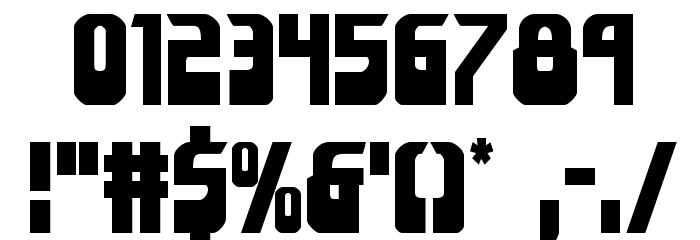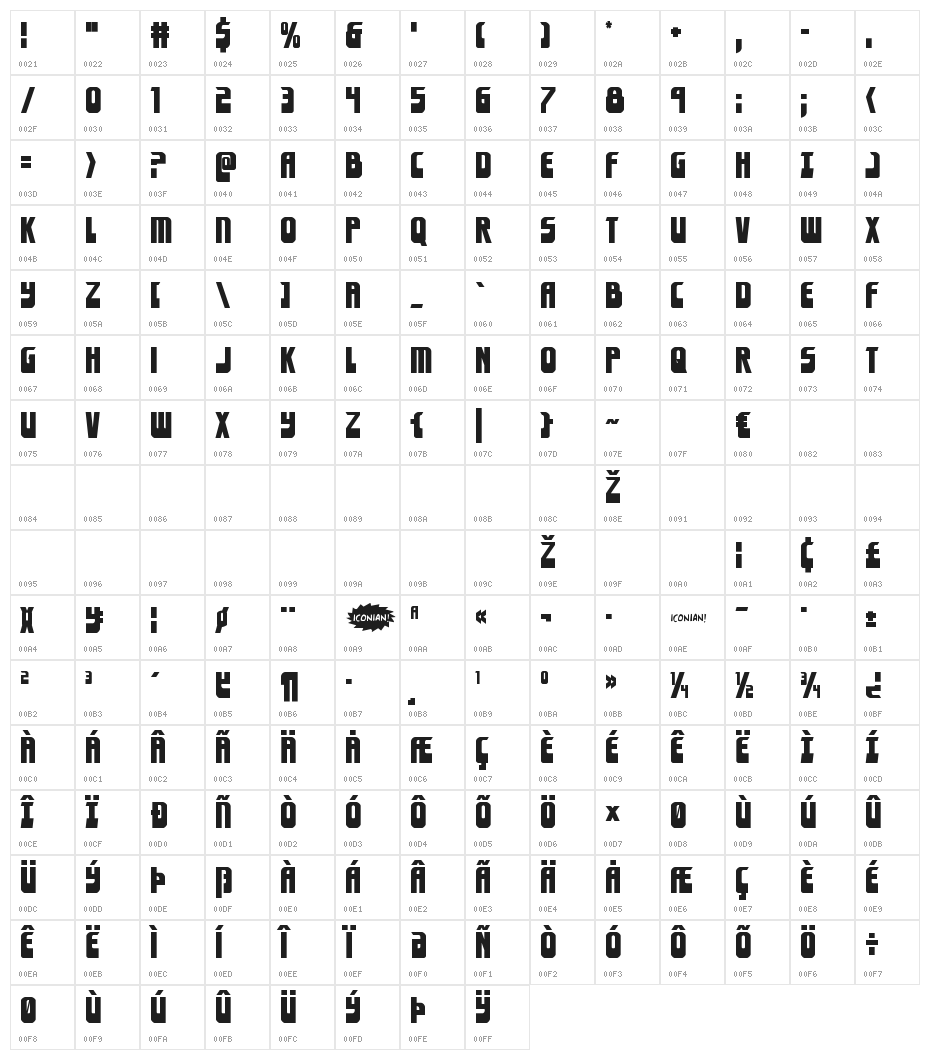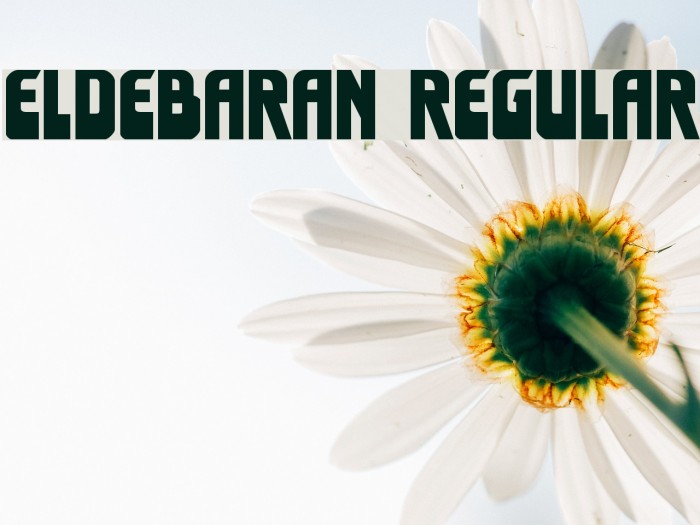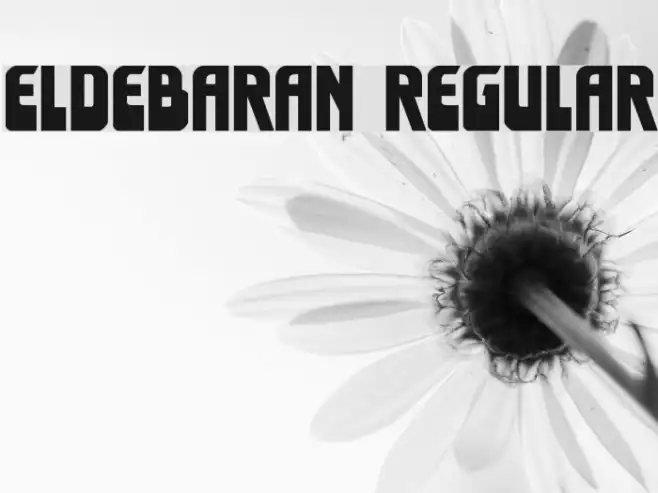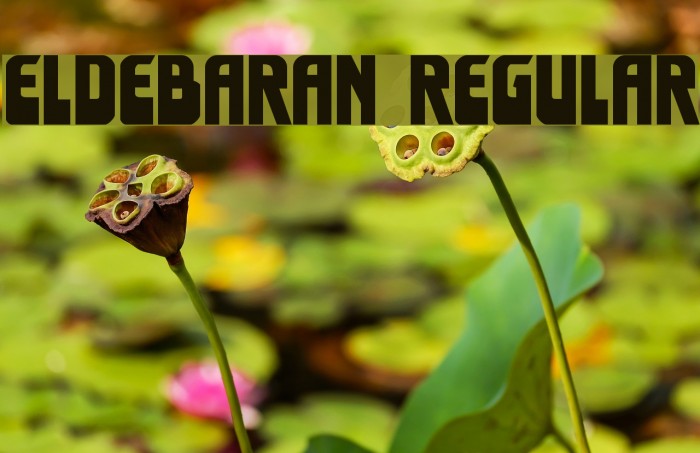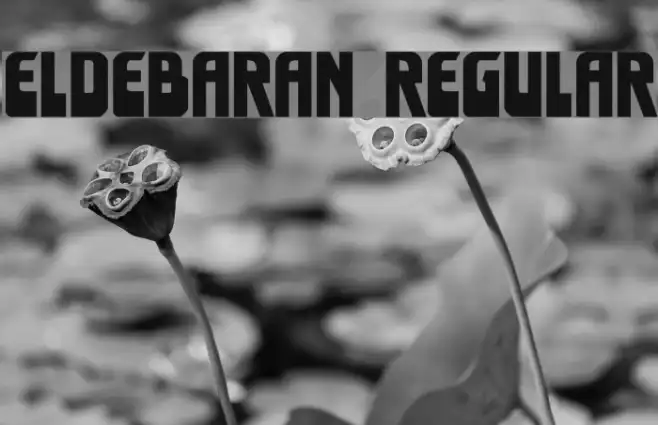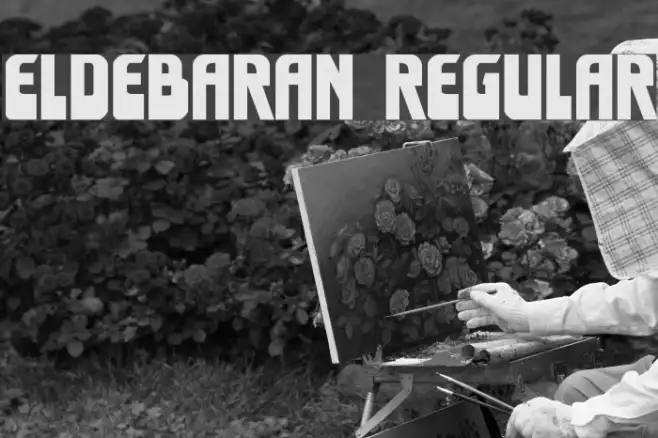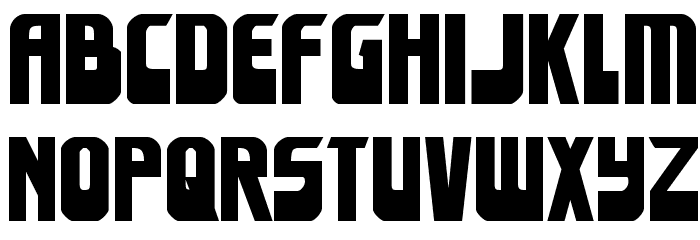
Eldebaran Regular Font
Eldebaran Regular Description
This font features a bold and geometric design with strong, angular lines and a futuristic aesthetic. The characters are uniformly wide, creating a cohesive and structured appearance. The uppercase letters are particularly striking, with a blocky and robust form that commands attention. The numerals and special characters maintain this boldness, ensuring consistency across all glyphs. The font's style is reminiscent of retro-futuristic themes, making it ideal for projects that require a modern yet nostalgic touch.
| Proposed Projects | Ideal for sci-fi themed posters, video game titles, branding for tech companies, and any project needing a bold, modern look. |